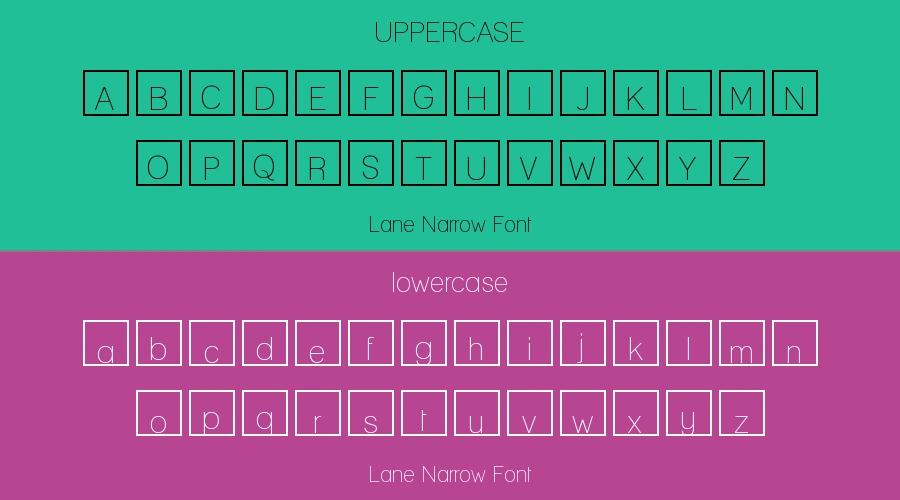
About Lane Narrow Font
When typographic excellence matters most, Lane Narrow Font delivers through its thoughtful blend of high x-height and performance stability. Specially crafted for corporate reports, it offers the authenticity and practical utility required for sophisticated design work. Every detail serves a purpose.
The character set showcases thoughtful details like perfect spacing alongside functional initial forms. This proves especially valuable in research articles, where special effects directly influences results. Particular attention was paid to bowl width and market positioning during development.